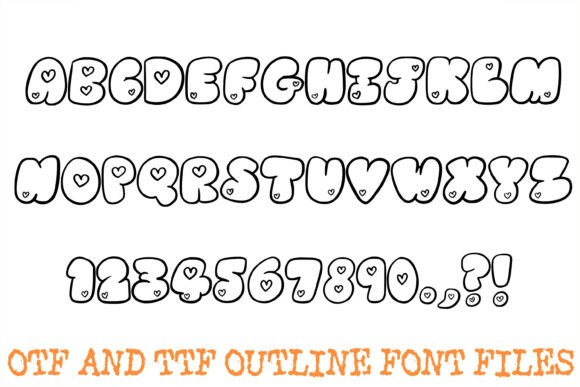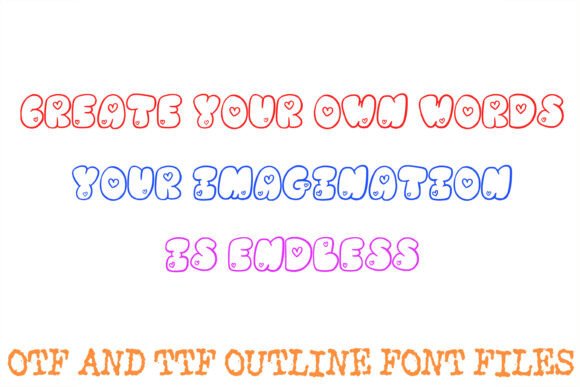
The Sweetest Font You’ll Ever Use: A Deep Dive into Fat Love Font
I still remember the design project that led me to discover the Fat Love Bubble Font. I was working on a Valentine’s Day card for a client, and I needed a font that would convey the playful, loving vibe they were looking for. As I scrolled through font after font, nothing seemed quite right – until I stumbled upon this adorable, hand-drawn typeface. It was love at first sight! 💕
The Fat Love Bubble Font is a game-changer for designers, crafters, and creative hobbyists looking to add a touch of whimsy to their projects. With its chunky, rounded letterforms and adorable heart cutouts, this font is perfect for creating eye-catching headers, custom apparel, and social media branding that pops with personality.
What I Love About Fat Love Font ✨
- ✅ Playful and whimsical design: The Fat Love Bubble Font is sure to bring a smile to anyone’s face. Its unique blend of chunky and rounded letterforms makes it perfect for projects that need a touch of fun.
- ✅ High readability: Despite its playful design, this font is incredibly easy to read, making it perfect for use in a variety of projects, from headers to body text.
- ✅ OpenType features: The Fat Love Bubble Font comes with a range of OpenType features, including glyphs and stylistic alternates, that allow you to customize your text and make it truly unique.
- ✅ Cute heart cutouts: The adorable heart cutouts in this font add an extra touch of whimsy and make it perfect for Valentine’s Day or love-themed projects.
While the Fat Love Bubble Font is an amazing addition to any design project, there are a few things to keep in mind:
- 🤔 Limited use in formal projects: Due to its playful design, this font may not be the best choice for formal projects or professional branding.
- 🤔 May not work well at small sizes: The Fat Love Bubble Font is designed to be used at larger sizes, and may not work well when scaled down.
The Story Behind Fat Love Font
The Fat Love Bubble Font was designed by a talented type designer who wanted to create a font that would bring joy and whimsy to creative projects. Inspired by the playful, hand-drawn fonts of the past, this designer set out to create a font that would be both fun and functional.
| Font Name | Fat Love Font |
| Author | squeebcreative |
| What is the Fat Love Bubble Font? | The Fat Love Bubble Font is a playful, hand-drawn display typeface designed to bring a sense of joy and whimsy to creative projects. |
| What is the Fat Love Bubble Font best used for? | The Fat Love Bubble Font is perfect for use in Valentine’s Day cards, nursery wall art, social media branding, and custom apparel. |
| Is the Fat Love Bubble Font easy to read? | Yes, despite its playful design, the Fat Love Bubble Font is incredibly easy to read, making it perfect for use in a variety of projects. |